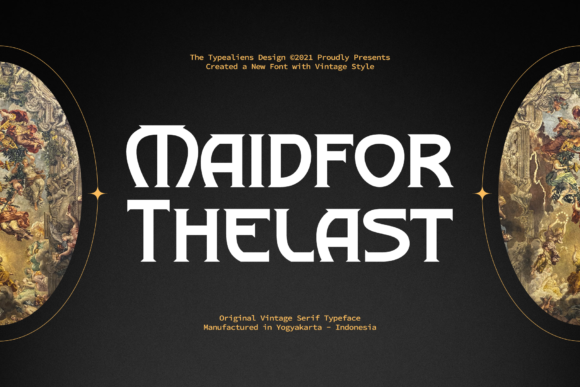
Unleash the captivating power of Maidfor Thelast, a display font masterpiece tailored to ignite your creativity and elevate your designs. Immerse yourself in a world of bold, thick letters that dance effortlessly across the canvas, leaving an unforgettable mark on every project you touch.
With Maidfor Thelast, you'll discover an arsenal of possibilities, making it the perfect choice for quote art that demands attention. Its strong presence and commanding stature will transform your words into visual symphonies, captivating your audience with every stroke.
Beyond quote art, Maidfor Thelast's versatility knows no bounds. Let your imagination soar as you explore its endless applications, from eye-catching headlines to alluring posters. Its timeless charm complements a wide range of design aesthetics, effortlessly enhancing everything it graces.
Join the ranks of creative visionaries who have harnessed the power of Maidfor Thelast to captivate their audiences. Whether you seek to inspire, inform, or simply leave a lasting impression, this font will empower you to craft designs that resonate with your target audience on a profound level.
Embrace the boldness, the thickness, and the undeniable charisma of Maidfor Thelast. Elevate your designs to new heights and let your creativity shine through. Start your journey with Maidfor Thelast today and experience the transformative power of a font that will undoubtedly become a cornerstone of your creative toolkit.